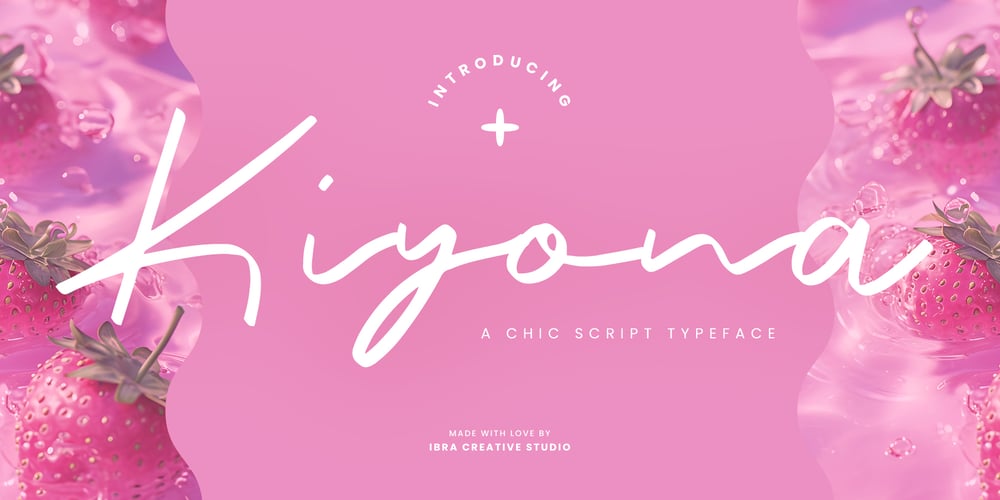
Kiyona Font Family was designed by Roisatul Azizah and published by IbraCreative. Kiyona contains 1 styles and family package options. Kiyona – A Chic Script TypefaceKiyona, an exquisite script typeface, epitomizes chic elegance with its graceful and sophisticated design. Each letter in Kiyona dances across the page with a perfect balance of fluidity and style, embodying the essence of chic handwriting. The intricate loops and curves create a timeless appeal, making it a perfect choice for projects that demand a touch of sophistication. Kiyona effortlessly blends contemporary flair with classic charm, offering a versatile and upscale typographic solution for branding, invitations, or any design endeavor that seeks to radiate a chic and refined aesthetic. Elevate your projects with Kiyona’s alluring script, where every stroke speaks the language of chic sophistication. Kiyona is perfect for branding projects, logo, wedding designs, social media posts, advertisements, product packaging, product designs, label, photography, watermark, invitation, stationery, game, fashion and any projects.Fonts include multilingual support for; Afrikaans, Albanian, Czech, Danish, Dutch, English, Estonian, Finnish, French, German, Hungarian, Italian, Latvian, Lithuanian, Norwegian, Polish, Portuguese, Slovak, Slovenian, Spanish, Swedish.